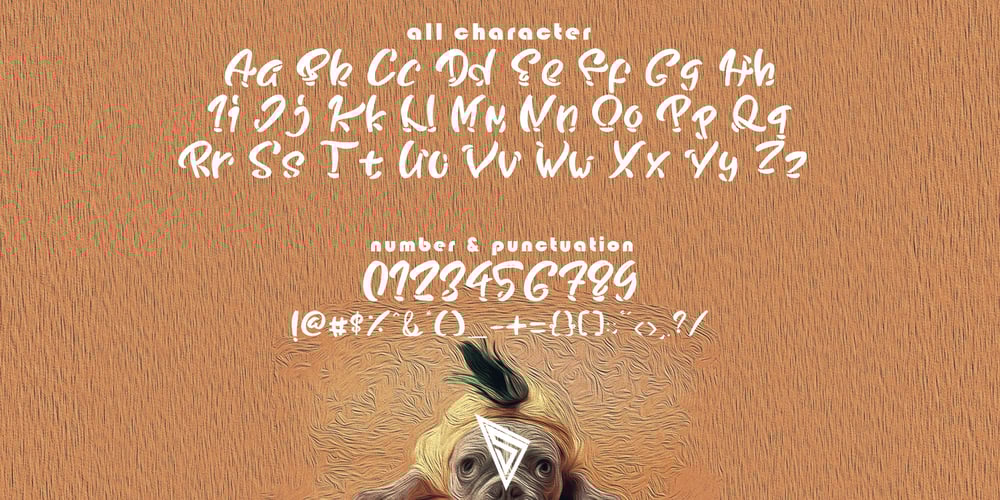
New Year Font Family was designed by Muhammad Helmi and published by Senekaligrafika. New Year contains 1 styles and family package options. “New Year” is a cute handwritten fonts style that speak to instant happy sensation,that puts a smile on your project and will inspire you to create something fun and memorable.“New Year” will help you to create special and touching typographical design for christmast projects, for every day or the happiest day in life, new year vacations, new year cards, greeting card, headings, flyer, product packaging, book cover, printed quotes, logos, and many more. It is really universal and modern font. The owner of endless possibilities!